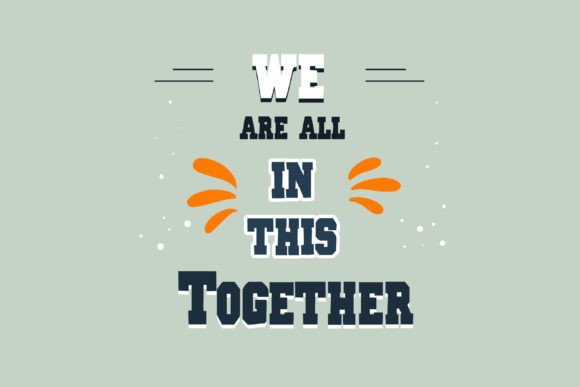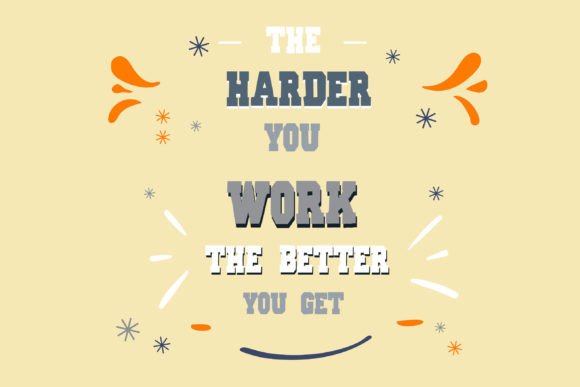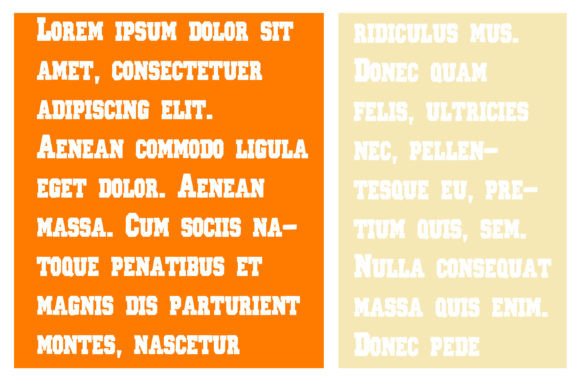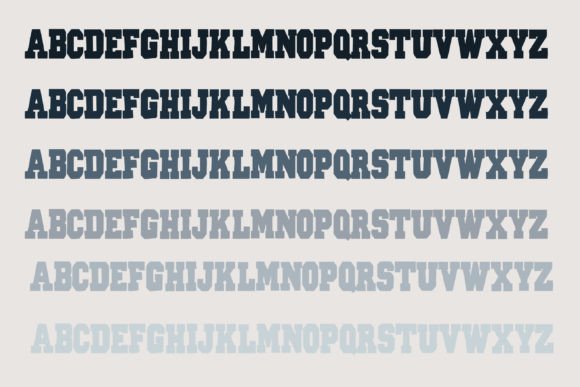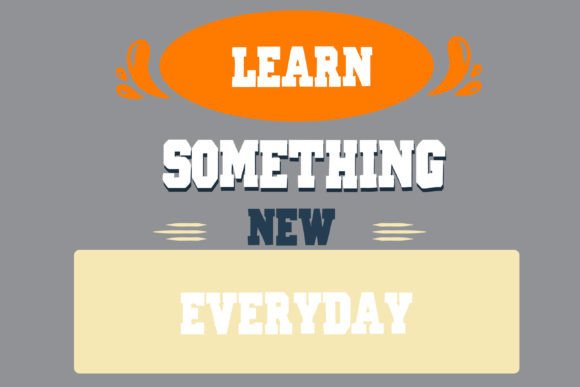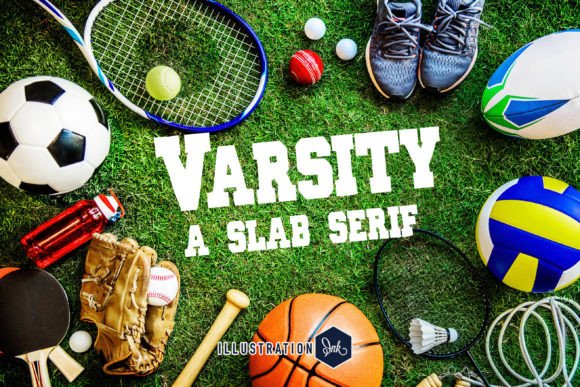
Varsity
Varsity: A Cool and Traditional Slab Serif Font
Varsity is a cool hand-crafted slab serif font that combines traditional aesthetics with unique character. This versatile typeface brings an original look to various creative applications, from letterheads to stationery[2].
Key Features of Varsity
• Hand-Crafted Design: Offers artisanal character.
• Traditional Style: Features classic collegiate elements.
• Clean Look: Provides clear, capital letters with knockout effect[2].
• Versatile Application: Works well for various design needs.
Best Uses for Varsity
Thanks to its versatile characteristics, Varsity works especially well for:
When using Varsity in your designs, keep these tips in mind:
• Try it for headlines or display text to showcase its traditional style.
• Use the knockout effect for unique visual impact[2].
• Works well on both men’s and women’s garments[2].
• Let its crafty character enhance creative projects.
To sum up, Varsity is an excellent choice for designers seeking a cool and traditional slab serif font. Its unique characteristics make it perfect for projects that need a crafty touch. Whether you’re creating letterheads, designing titles, or developing stationery, Varsity offers the perfect blend of hand-crafted appeal and traditional style.
Furthermore, Varsity’s distinctive design allows it to shine in contexts where both tradition and creativity are key. For instance, from display typography to garment designs, this font can elevate your projects with its original style. Also, its clean yet characterful appearance works particularly well in designs that aim to make a traditional impact.
In conclusion, Varsity truly captures the essence of collegiate design in slab serif typography. Its ability to enhance various applications shows how well it can serve creative needs. Therefore, for those wanting to add a touch of traditional craftsmanship to their work, Varsity can transform any design with its distinctive style. Ultimately, it’s perfect for designers aiming to make a cool, traditional impact across crafty projects.